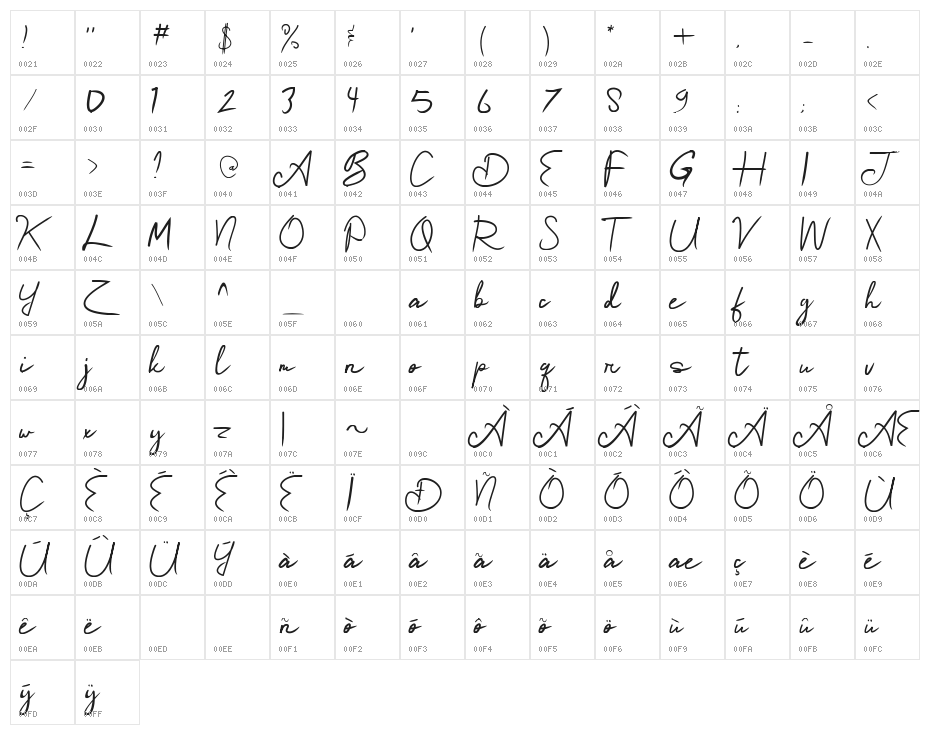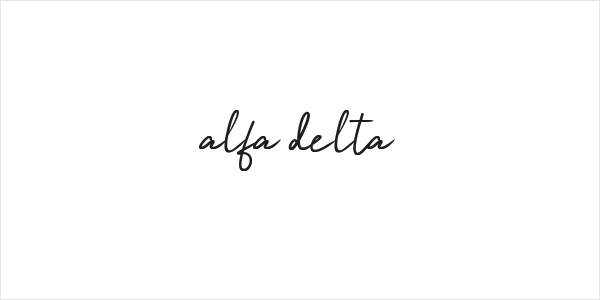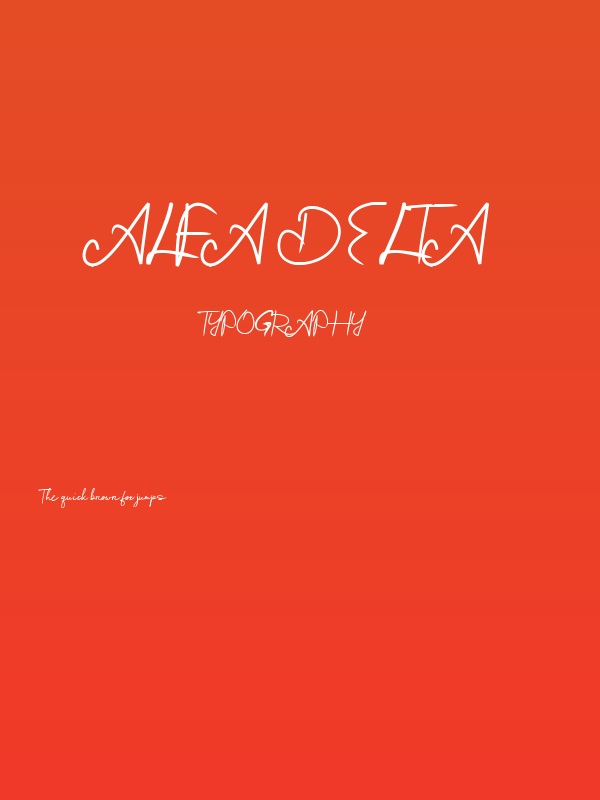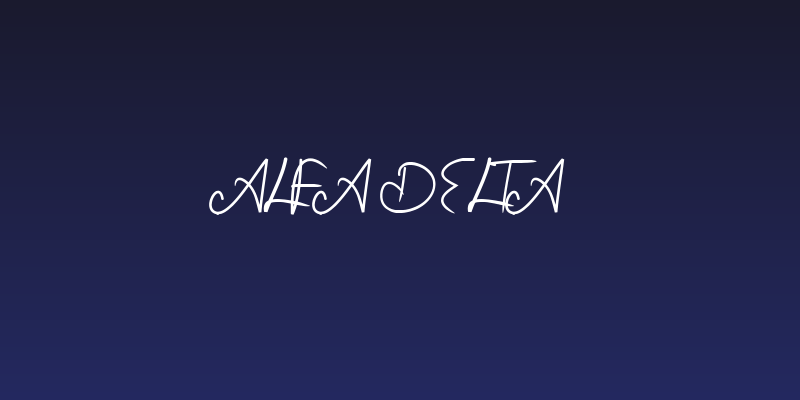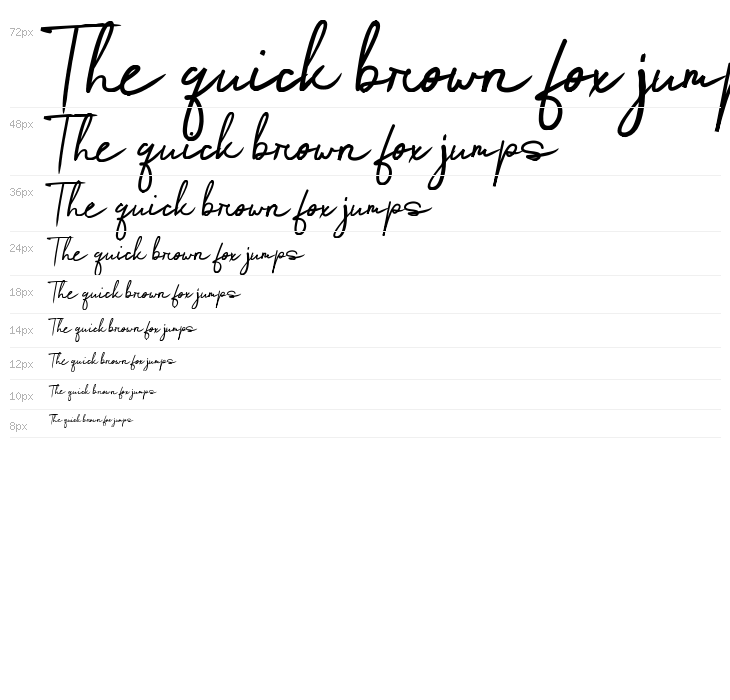
alfa delta Font
alfa delta Description
This font features a dynamic and flowing script style, characterized by its elegant and fluid strokes. The uppercase letters exhibit a sense of movement with their elongated and slightly slanted forms, while the lowercase letters maintain a consistent rhythm with smooth curves and loops. The numerals are distinct and maintain the same fluidity, ensuring readability. Special characters are seamlessly integrated, enhancing the font's versatility. This script font exudes a sense of sophistication and creativity, making it suitable for a variety of design applications.
| Overall Style | Elegant and Creative |
| Use Case | Logos, Invitations, Decorative Text |
| Proposed Projects | Ideal for wedding invitations, greeting cards, branding projects, and elegant packaging designs. |